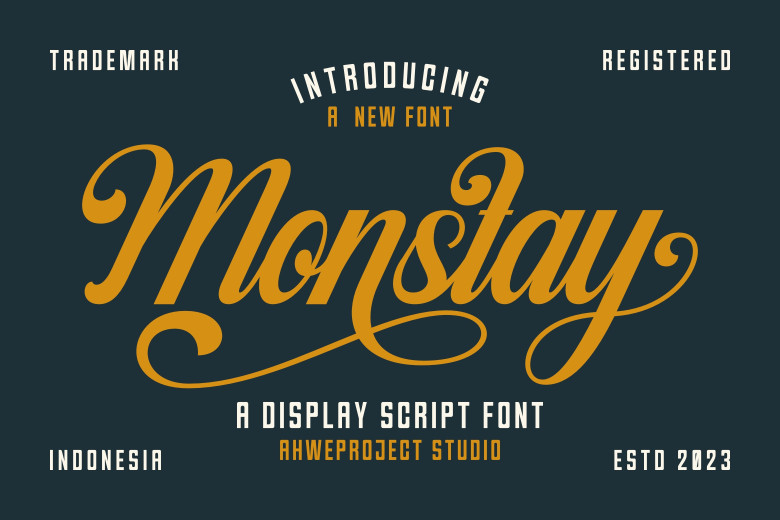
Monstay Font
Monstay is an elegant script font designed to showcase the art of calligraphy through graceful letterforms that perfectly combine elegance and grace. Perfectly balanced between elegance and grace, this font was developed specifically for use in logos.
Wedding cards, greetings packaging, fashion magazines, logos or books; as well as invitations, labels, magazines logos or books can all serve as forms of promotion for wedding cards, greetings packaging, makeup books stationery labels or any other purposes.
Monstay Calligraphy Script Font